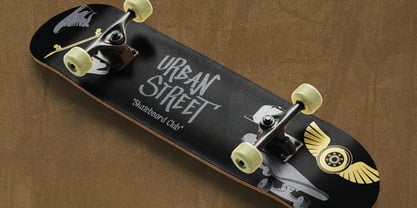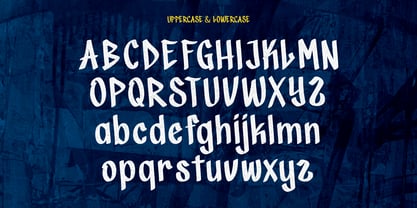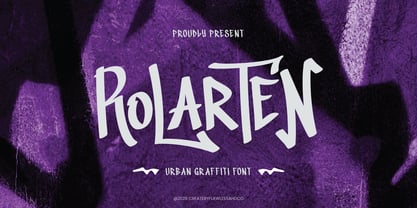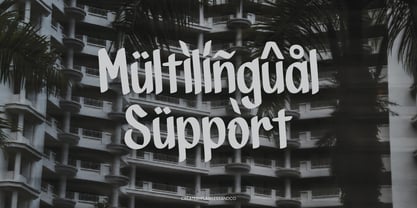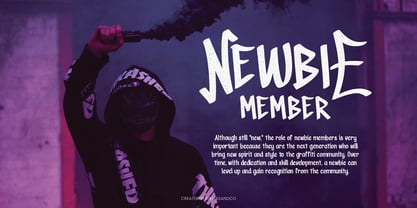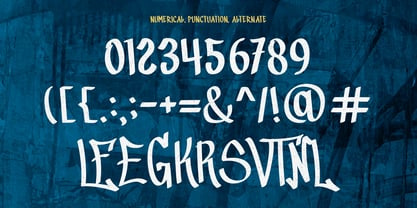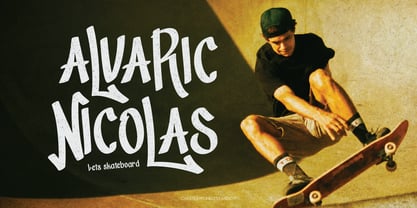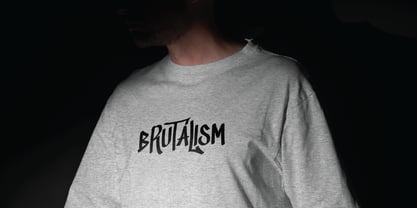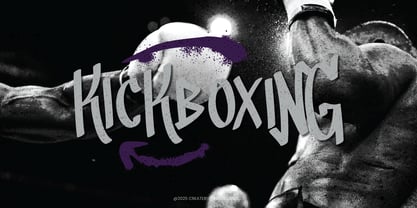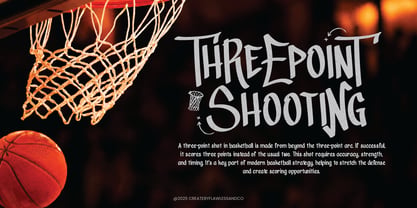
Rolarten
Die Schriftfamilie Rolarten wurde von Achmad Yani entworfen und von Flawlessandco veröffentlicht. Rolarten enthält 1 Stile. Mehr über diese Familie
ROLARTEN a bold and gritty urban graffiti font that brings street art straight into your design work. Inspired by raw energy, spray paint textures, and rebellious self-expression, Rolarten delivers a dynamic handstyle that’s perfect for bold headlines and creative identities. Whether you're designing for streetwear, music events, or extreme sports, Rolarten gives your work a fearless voice — loud, edgy, and unapologetic.
Features :
Multilingual, Uppercase alphabet A-Z, Lowercase alphabet a-z, Numbers 0-9, Some punctuation, Alternates & Ligatures